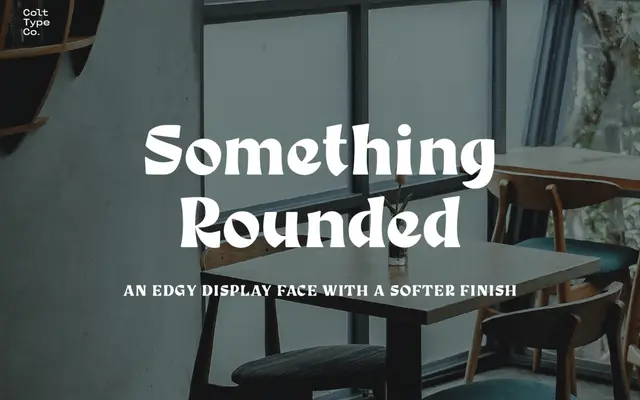
Something Rounded Blackletter Font
A rounded blackletter display font aimed at logo designers, blending serif detail with softened blackletter forms for headings and logotypes.
Designed with logo designers and typographers in mind, it combines blackletter structure with rounded, softened serifs and a vintage character. The font includes stylistic sets, discretionary ligatures and over 400 glyphs, covering Basic, Western European, Central European and South-Eastern European Latin scripts. Available as OTF and web fonts, it is positioned alongside a sharper companion face called Something New.
The foundry describes it as a serif blackletter with rounded forms, blending blackletter structure with serif details and a modern sensibility, making it a display-oriented blackletter rather than a purely historical revival.